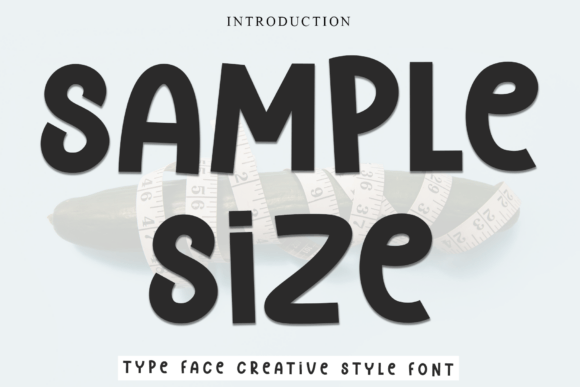
Introducing Sample Size Font: The Festive and Merry Typeface for Your Holiday Designs
The holiday season is upon us, and what better way to get into the spirit than with a font that’s as festive and merry as Sample Size Font? This decorative typeface is designed to capture the magic of the holiday season, adding a touch of enchantment to your designs. In this article, we’ll take a closer look at Sample Size Font, its features, and how you can use it to make your holiday-themed projects shine.
What Makes Sample Size Font Special?
Sample Size Font is a unique and whimsical typeface that’s perfect for holiday-themed designs. Its decorative elements and nostalgic ambiance make it an ideal choice for greeting cards, gift tags, and other festive projects. With its PUA encoding, you can easily access all the amazing glyphs and ligatures, making it a breeze to create stunning typography.
- Decorative Elements: Sample Size Font features decorative elements that add a touch of festivity to your designs. From snowflakes to holly leaves, this font has everything you need to create a holiday-themed masterpiece.
- Whimsical Flair: This font has a whimsical flair that’s sure to bring a smile to your face. Its playful and cheerful design makes it perfect for creating holiday-themed projects that are fun and engaging.
- PUA Encoding: Sample Size Font is PUA encoded, making it easy to access all the glyphs and ligatures. This means you can create stunning typography without any hassle.
Uses of Sample Size Font
Sample Size Font is a versatile typeface that can be used for a variety of holiday-themed projects. Here are some ideas to get you started:
- Greeting Cards: Create stunning holiday greeting cards with Sample Size Font. Its decorative elements and whimsical flair make it perfect for conveying your holiday cheer.
- Gift Tags: Add a personal touch to your gift tags with Sample Size Font. Its festive design makes it perfect for creating custom gift tags that are sure to impress.
- Holiday-Themed Projects: From holiday posters to social media graphics, Sample Size Font is perfect for creating a variety of holiday-themed projects.
Benefits of Using Sample Size Font
There are many benefits to using Sample Size Font for your holiday-themed projects. Here are a few:
- Unique Design: Sample Size Font has a unique design that’s sure to stand out from the crowd. Its decorative elements and whimsical flair make it a one-of-a-kind typeface.
- Easy to Use: With its PUA encoding, Sample Size Font is easy to use, even for those who are new to font design.
- Versatile: Sample Size Font is a versatile typeface that can be used for a variety of holiday-themed projects.
Tips for Using Sample Size Font
Here are a few tips for using Sample Size Font:
- Experiment with Different Sizes: Sample Size Font looks great in a variety of sizes. Experiment with different sizes to find the one that works best for your project.
- Pair it with Other Fonts: Sample Size Font pairs well with other fonts. Try pairing it with a sans-serif font for a unique look.
- Use it for Headlines: Sample Size Font is perfect for headlines. Its decorative elements and whimsical flair make it a great choice for grabbing attention.
| Font Name | Sample Size Font |
| Author | PiPi Creative |
In conclusion, Sample Size Font is a festive and merry typeface that’s perfect for holiday-themed projects. Its decorative elements, whimsical flair, and PUA encoding make it a great choice for creating stunning typography. Whether you’re creating greeting cards, gift tags, or holiday-themed projects, Sample Size Font is sure to bring a touch of enchantment to your designs.